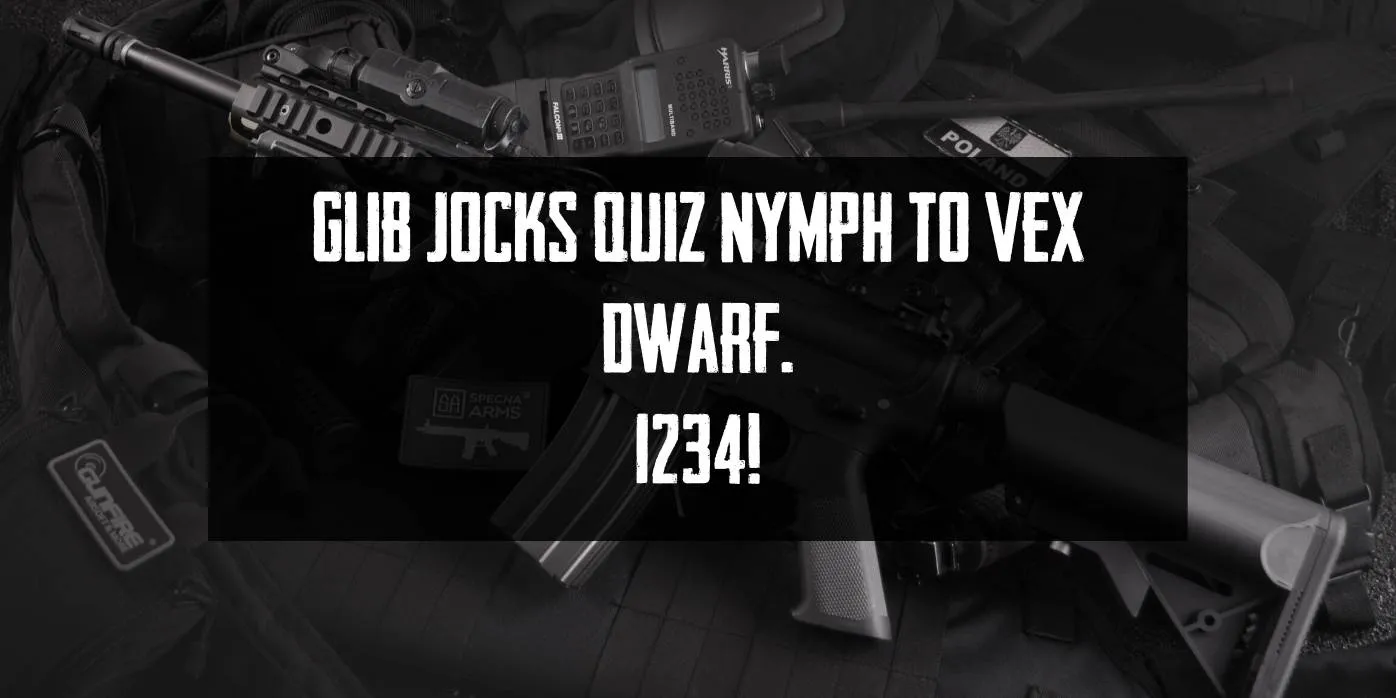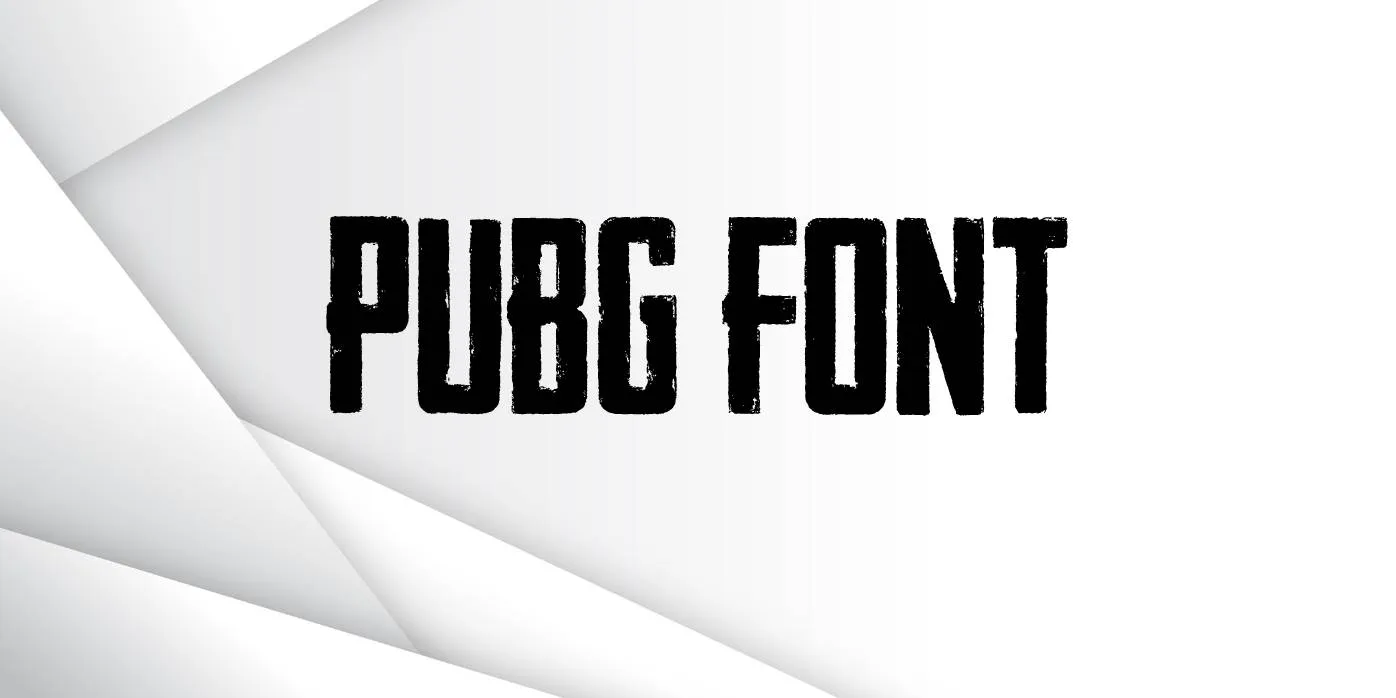
PUBG Font
PUBG Font is a very famous typeface designed by Pablo Impallari. This awesome typeface belongs to the sans serif family. This typeface has been created to work with web browsers and operating systems. This gorgeous font is used by millions of people all over the globe.
This typeface has a very unique look and feels that make it stand out from other sans serif fonts. PUBG Font was inspired by the popular game PlayerUnknown’s Battlegrounds. The designer of this typeface wanted to create a font that would be perfect for the game’s interface. The copy and paste function of this family is very amazing for different designs.
Another similar font which is youtube sans font is perfect for different designs and has the same features. PUBG Font is a very versatile typeface that can be used for a variety of purposes. It can be used for body text, headlines, or even for gaming purposes. This typeface is available in both regular and bold weights.